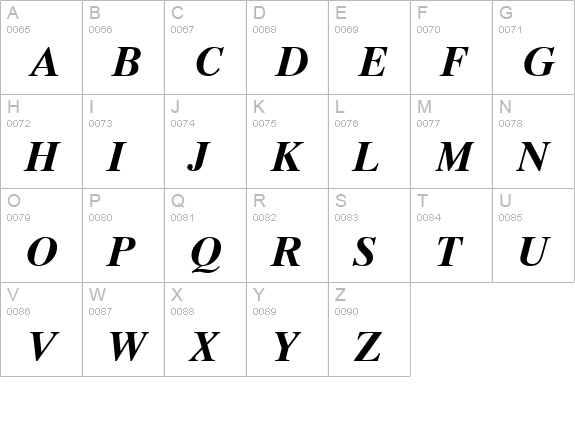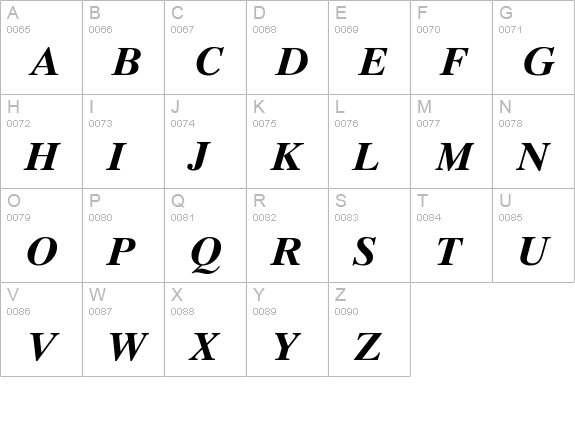
Tamal Bold Italic is a strong, high-contrast, italic variant in the Tamal typeface family \xE2\x80\x94 well suited to headlines, attention-grabbing titles, and strong calls-to-action.
Introducing Tamal Bold Italic, a stylish and eye-catching font that exudes confidence and sophistication. This font is perfect for adding a touch of elegance to any design project, whether it be a logo, branding materials, or even a headline for a magazine article. Tamal Bold Italic strikes the perfect balance between boldness and elegance, making it versatile and suitable for a wide range of applications. With its unique and carefully crafted curves, this font catches the eye and leaves a lasting impression. But what sets Tamal Bold Italic apart from other fonts is that it is not only aesthetically pleasing but also freely available to download. Yes, you read that right! You can get your hands on this stunning font without spending a dime. Simply visit FontsMarket.com and unlock the potential of Tamal Bold Italic for your creative endeavors. Whether you are a professional designer looking to elevate your work or an enthusiast looking to add a touch of sophistication to your personal projects, Tamal Bold Italic is the perfect choice. Download it today and experience the elegance and versatility of this remarkable font.